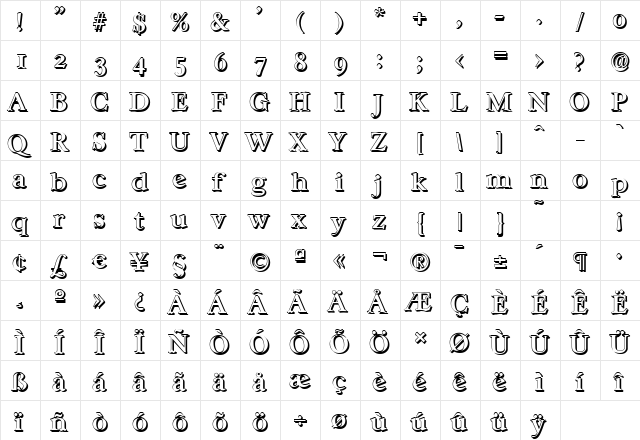
WilliamBeckerShadow-Medium Regular Font Preview
WilliamBeckerShadow-Medium Regular
Design Context for WilliamBeckerShadow-Medium Typeface
WilliamBeckerShadow-Medium is built around its visual character rather than neutral utility — its distinctive forms are designed to make an impression at display sizes.
Font Pairing: Pair with a clean neutral sans-serif for body copy to let WilliamBeckerShadow-Medium's character lead without overwhelming the composition.
Pro Tip: Treat WilliamBeckerShadow-Medium as the centrepiece of your typographic hierarchy. One strong heading set in a decorative face can carry an entire layout.